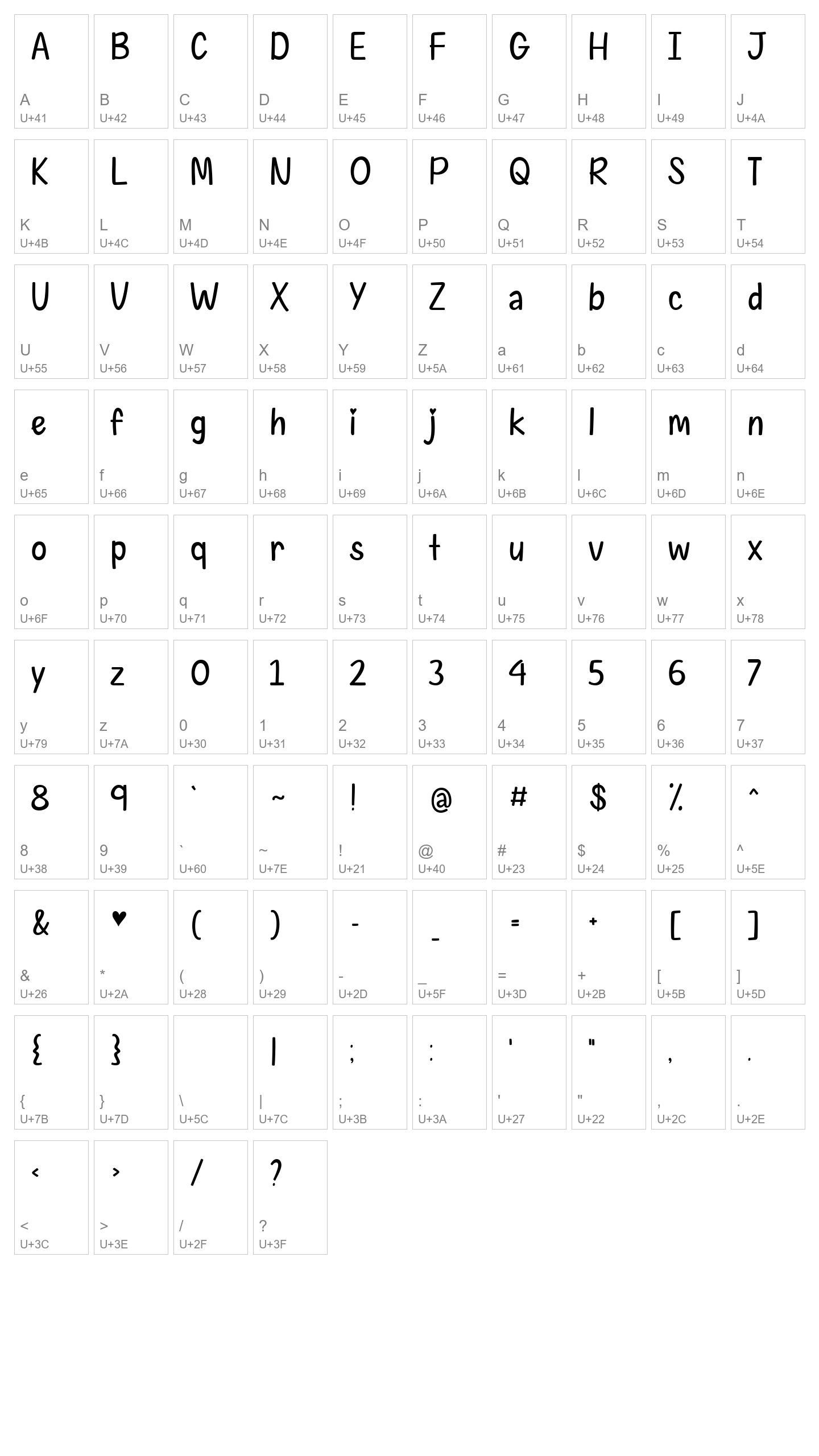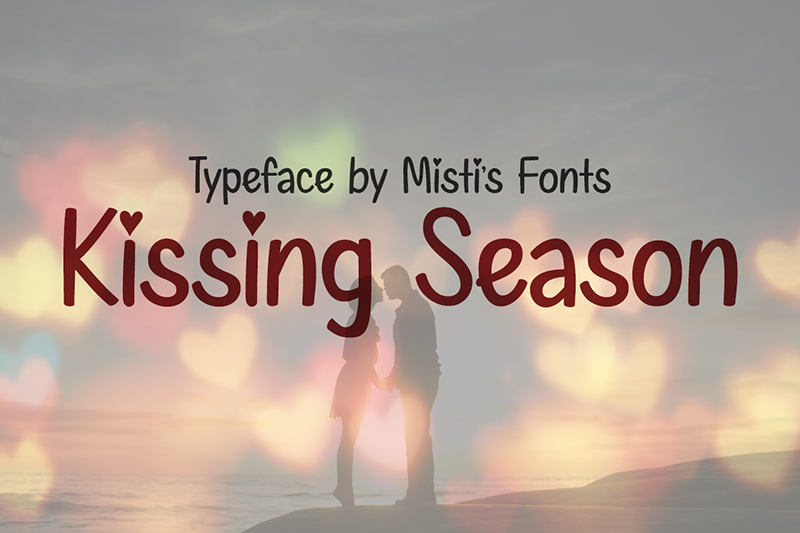
Kissing Season
Kissing Season is a charming handwritten font that adds a touch of love to your designs! With its playful and sweet style, its perfect for Valentines Day cards, romantic quotes, wedding invites, and more. Make every project feel warm, personal, and heartfelt!